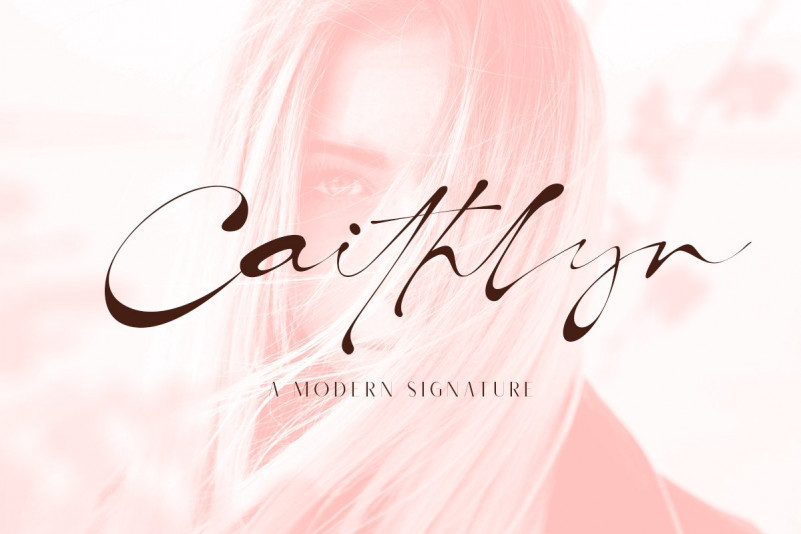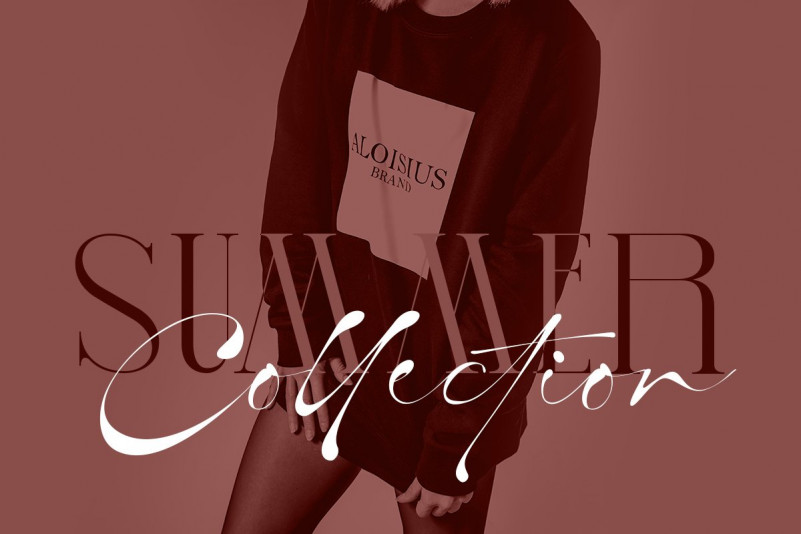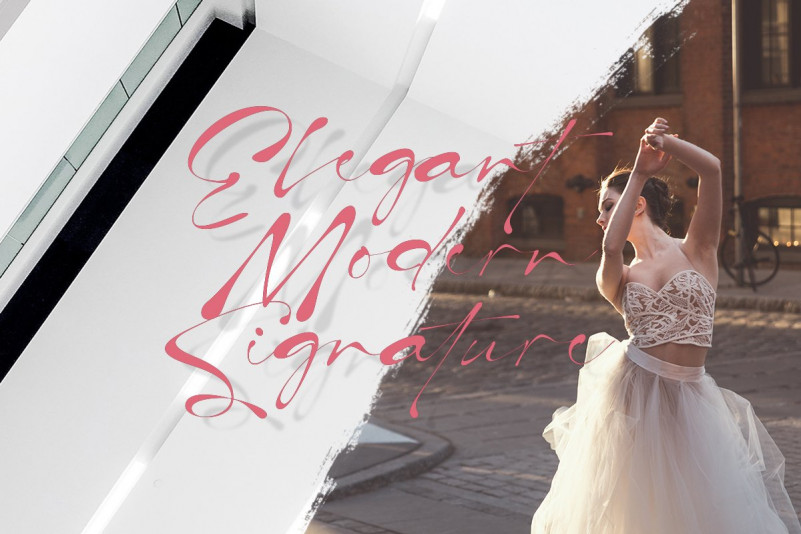
Caithlyn Font
Caithlyn is an Modern Signature font, perfect for logo design, branding, clothing design, posters, wedding invitations and so much more! Include Ligature 50+.